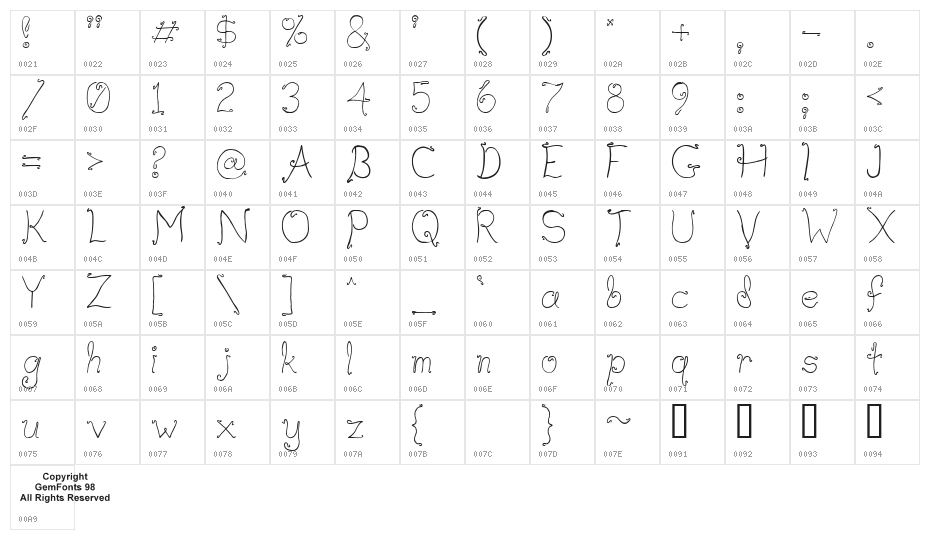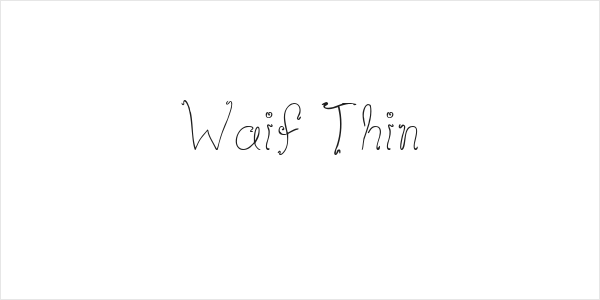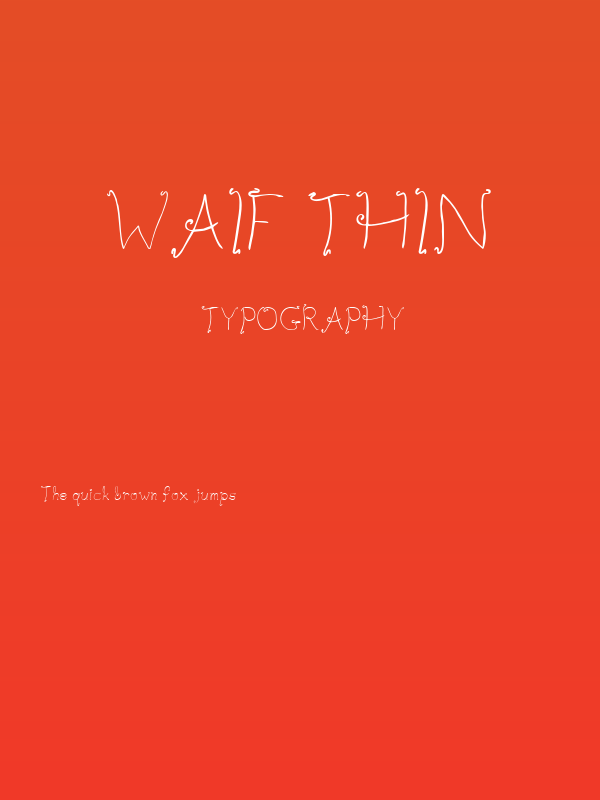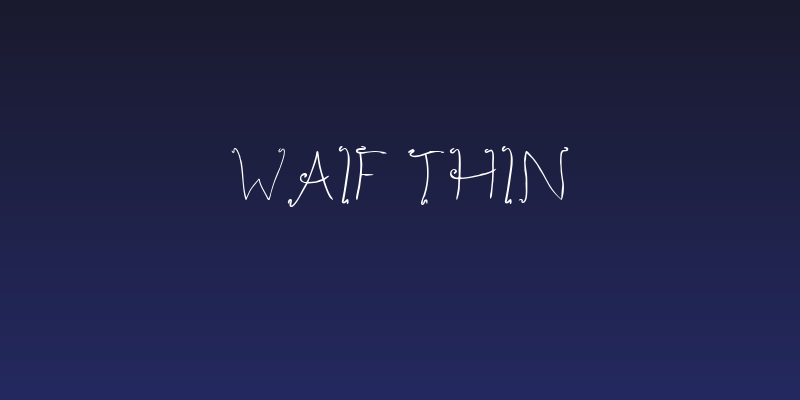
Waif Thin Font
Waif Thin Description
This font features a whimsical and playful design with thin, delicate strokes that create a sense of lightness and elegance. The characters are adorned with subtle curls and loops, adding a decorative flair that enhances its unique personality. The uppercase and lowercase letters maintain a consistent style, with each character exhibiting a distinct, hand-drawn quality. The numerals and special characters follow the same artistic approach, ensuring a cohesive look across all elements. This font's intricate details and artistic curves make it stand out, offering a creative and imaginative feel.
| Proposed Projects | Ideal for creative projects such as invitations, greeting cards, children's books, and artistic branding. |